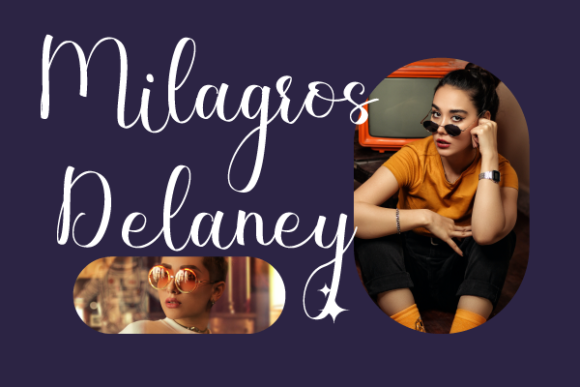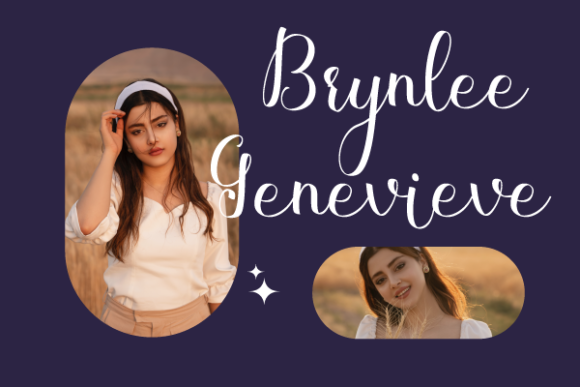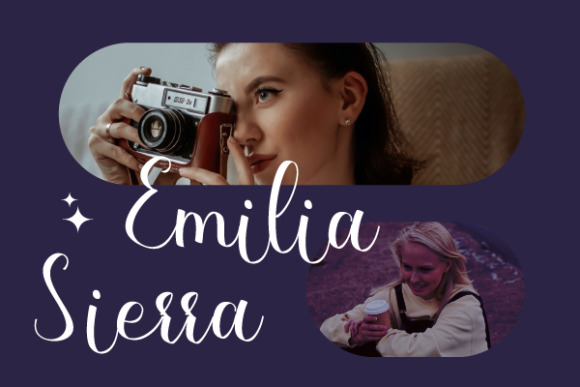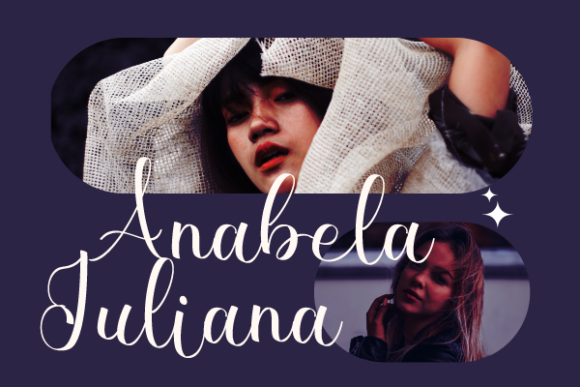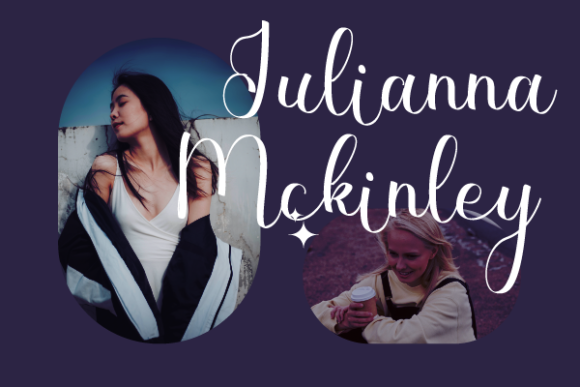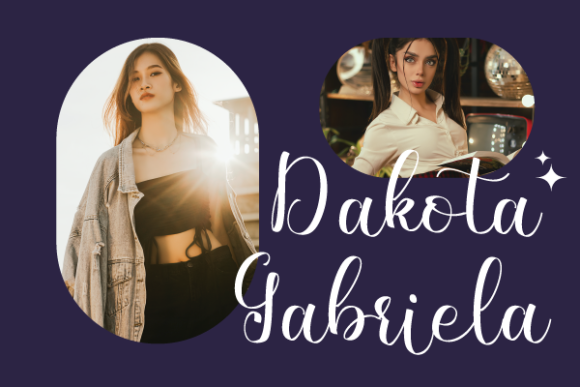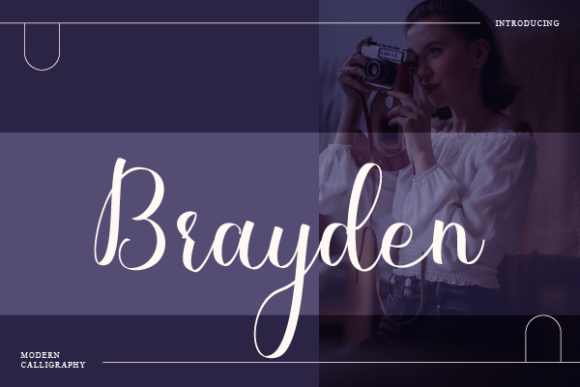
The Elegant Brayden Font: A Designer’s Delight
I’ll never forget the time I was working on a wedding invitation project, and my client asked for a font that was both elegant and personal. I scoured the internet, tried out countless fonts, but nothing seemed quite right. That was until I stumbled upon the Brayden font. Its distinct and graceful script style immediately caught my eye, and I knew I had found the perfect fit. In this article, I’ll share with you why I’m obsessed with the Brayden font and how you can make the most of it in your designs.
- ✨ Distinct and elegant script style that’s perfect for adding a personal touch to designs
- 💫 Beautifully crafted to evoke a sense of sophistication and luxury
- 🎨 Versatile and can be used for a wide range of design projects, from wedding invitations to logos
While the Brayden font is an excellent choice for many design projects, there are a few things to keep in mind:
- ⚠️ May not be the best choice for body text, as it’s designed primarily for display purposes
- 🤔 Some users have reported issues with kerning on certain letter combinations
- Experiment with OpenType features, such as ligatures and stylistic alternates, to add more personality to your design
- Use the “Glyphs” panel to access OpenType features, such as swashes and stylistic alternates
The Story Behind Brayden
The Brayden font was designed with the intention of creating a beautiful, elegant script font that would evoke a sense of sophistication and luxury. While the exact details of the font’s creation are unclear, it’s evident that the designer put a great deal of care and attention into crafting a font that’s both stylish and legible.
Q: What type of projects is the Brayden font best suited for?
A: The Brayden font is perfect for a wide range of design projects, including wedding invitations, thank you cards, quotes, greeting cards, logos, and business cards.
Q: Is the Brayden font easy to read?
A: Yes, the Brayden font is highly legible, even at small font sizes. This makes it perfect for use in a variety of design projects, from wedding invitations to body text.